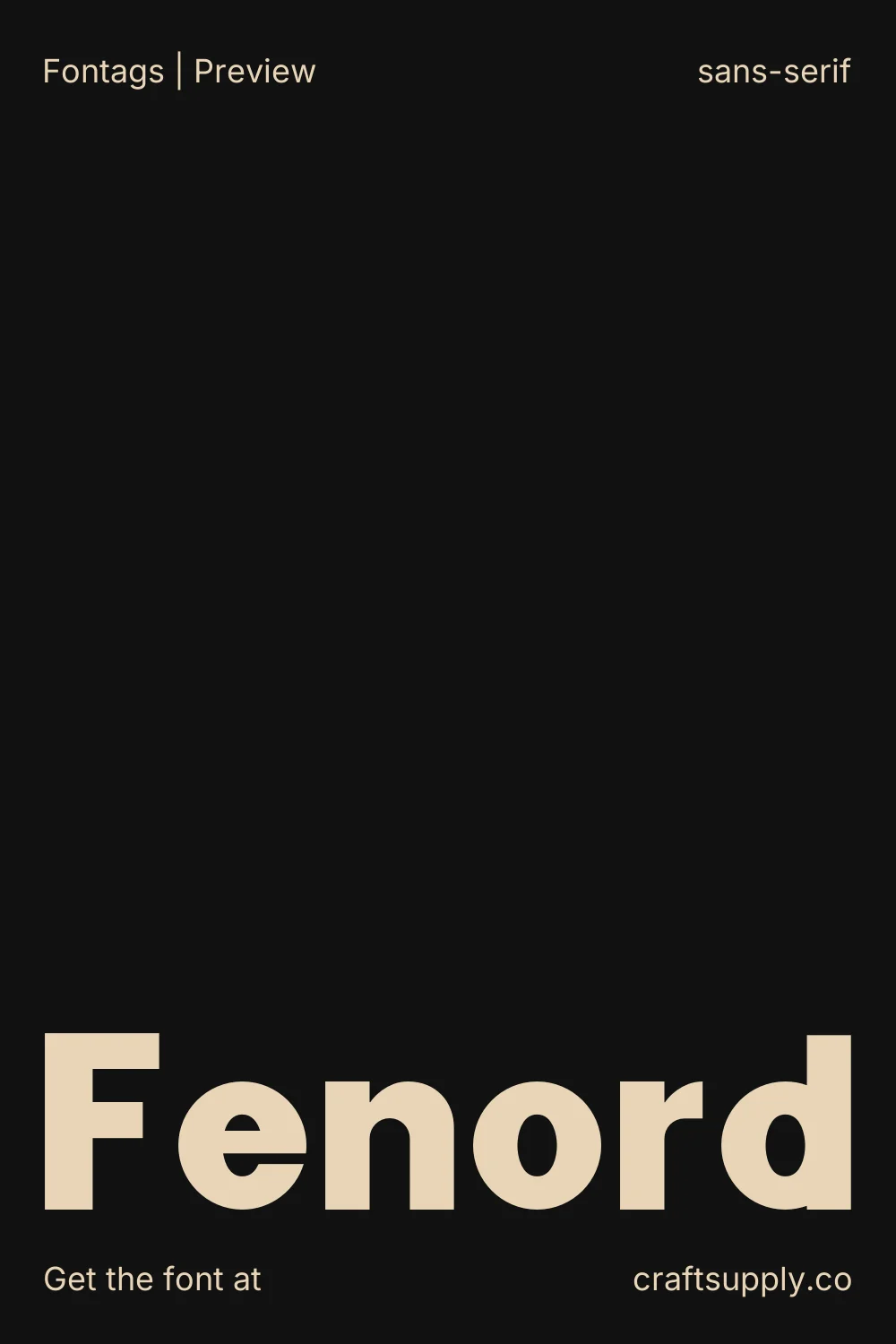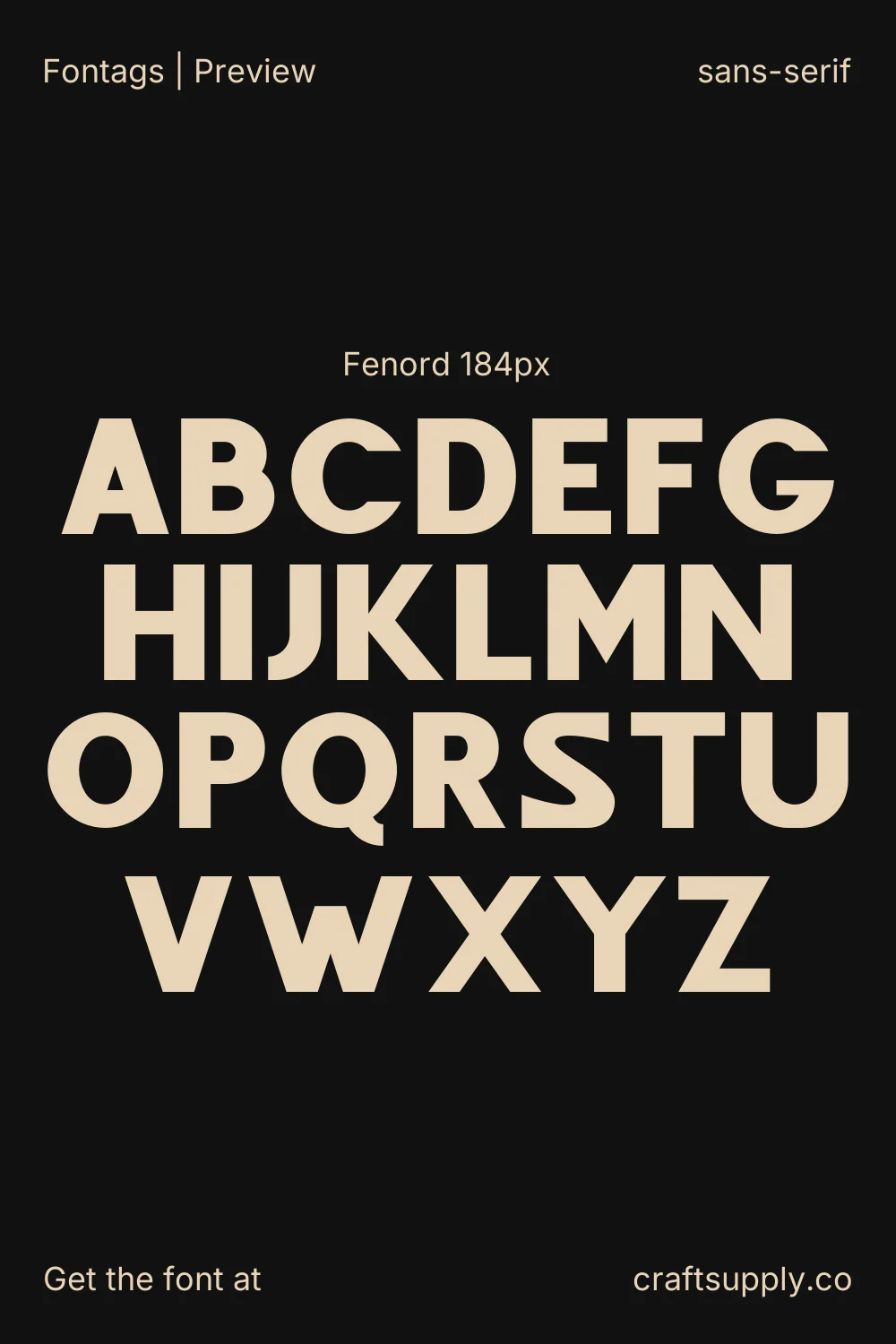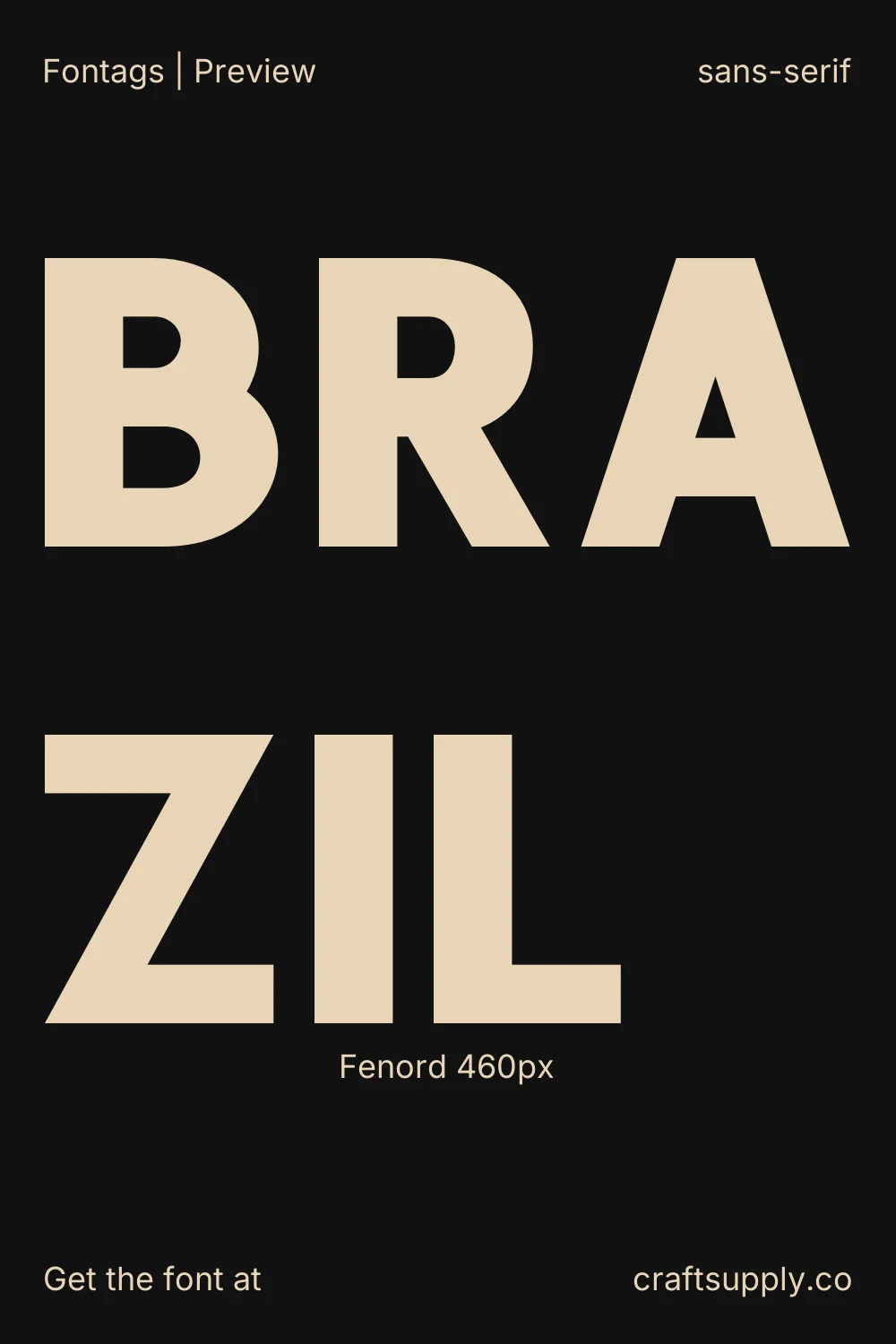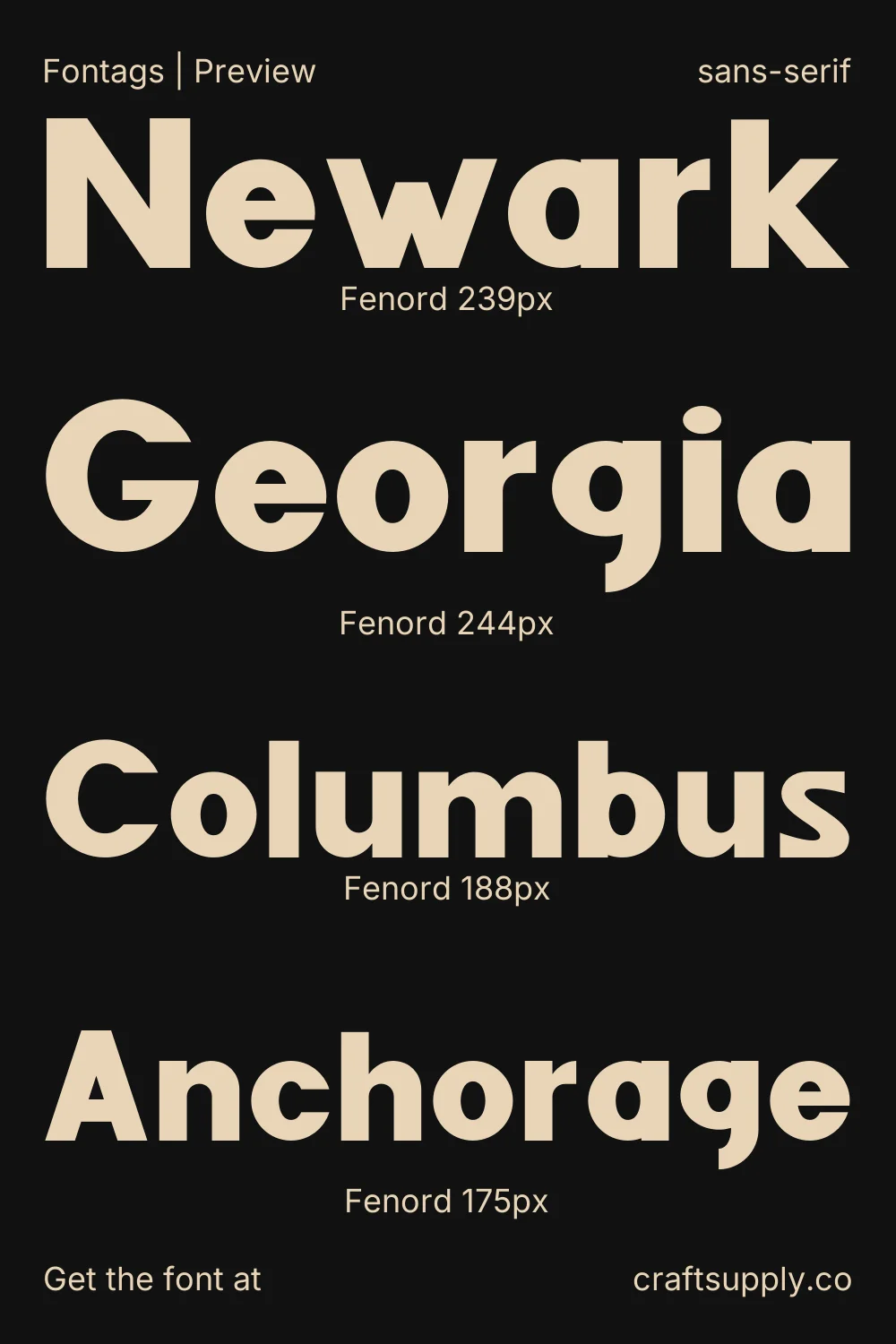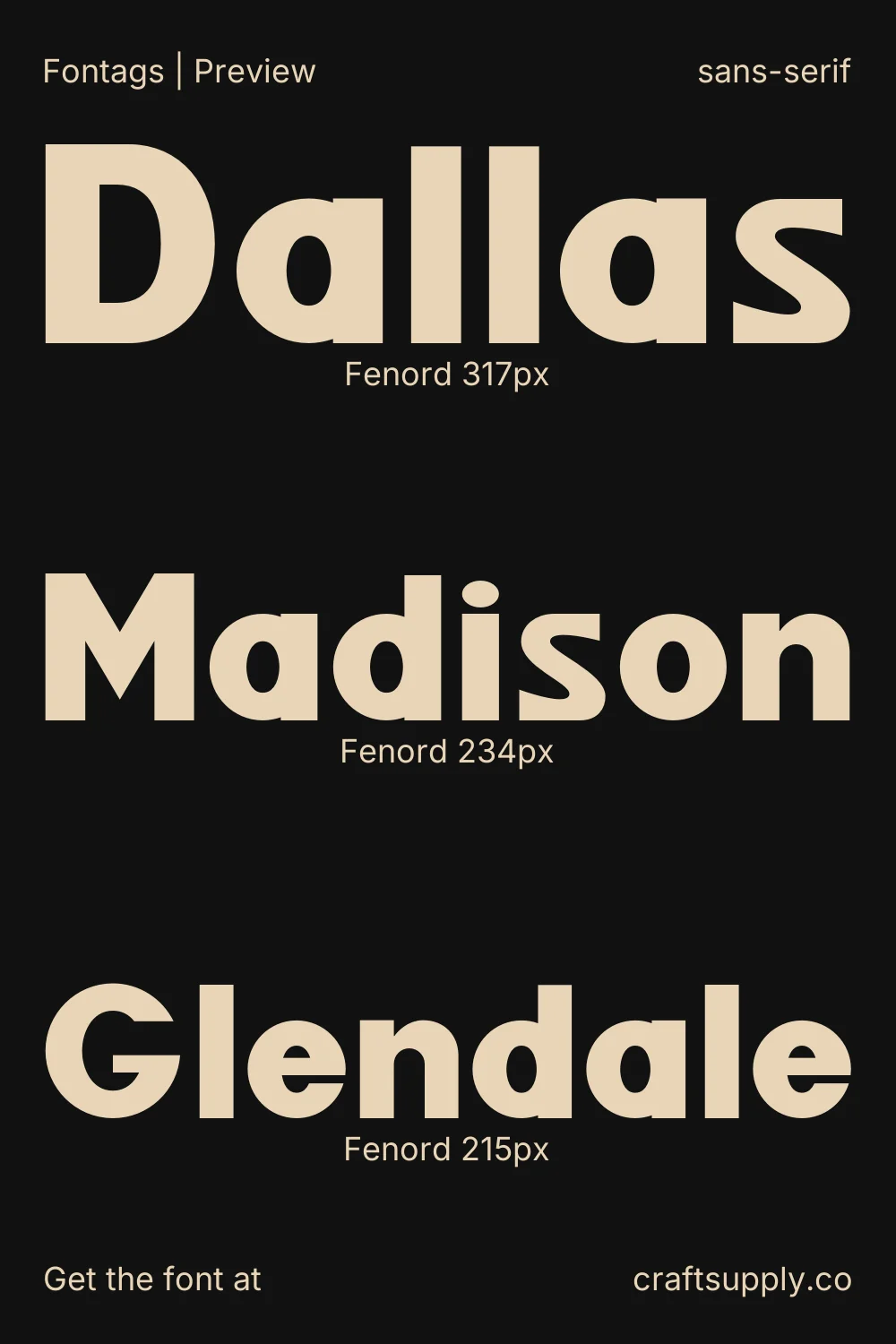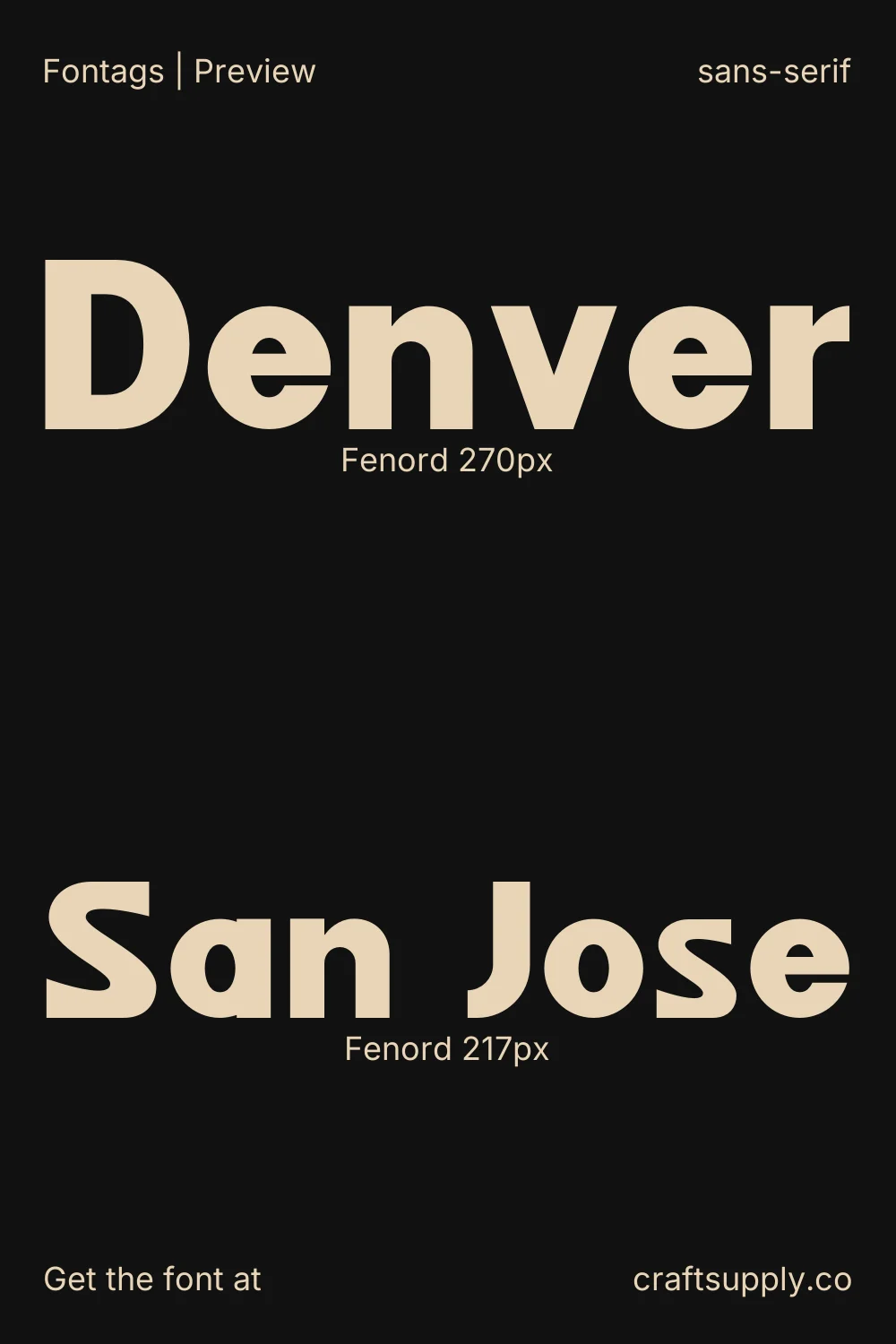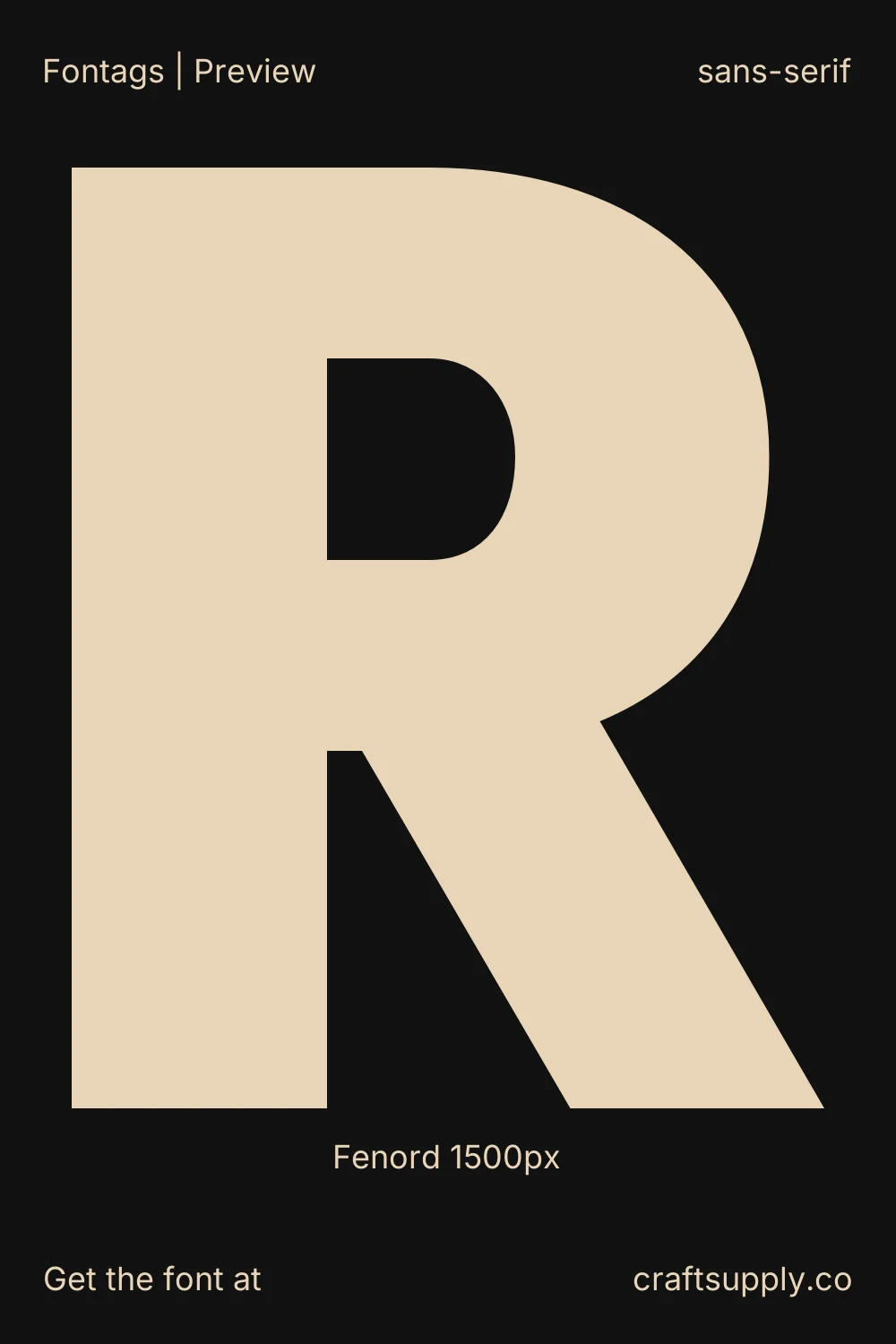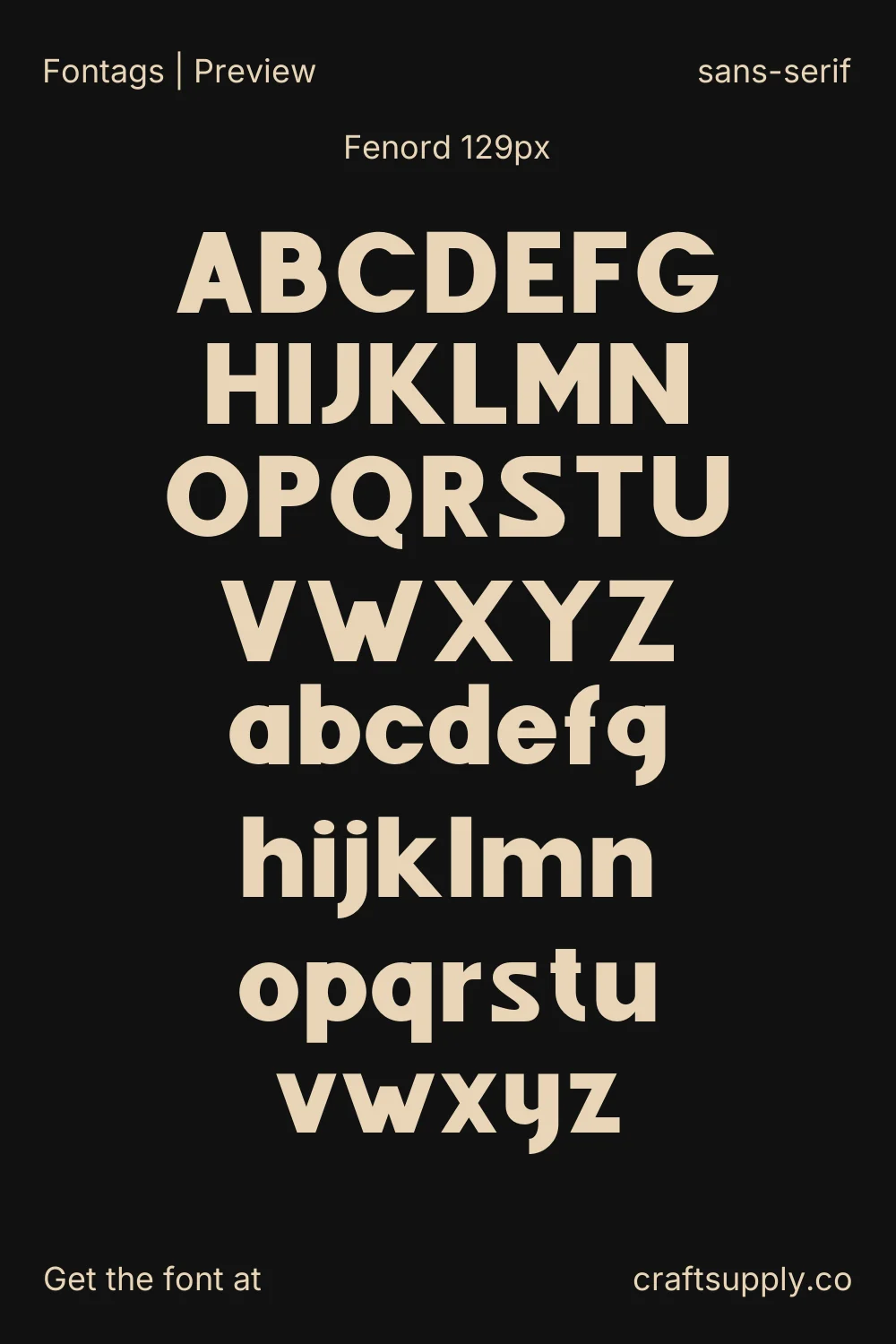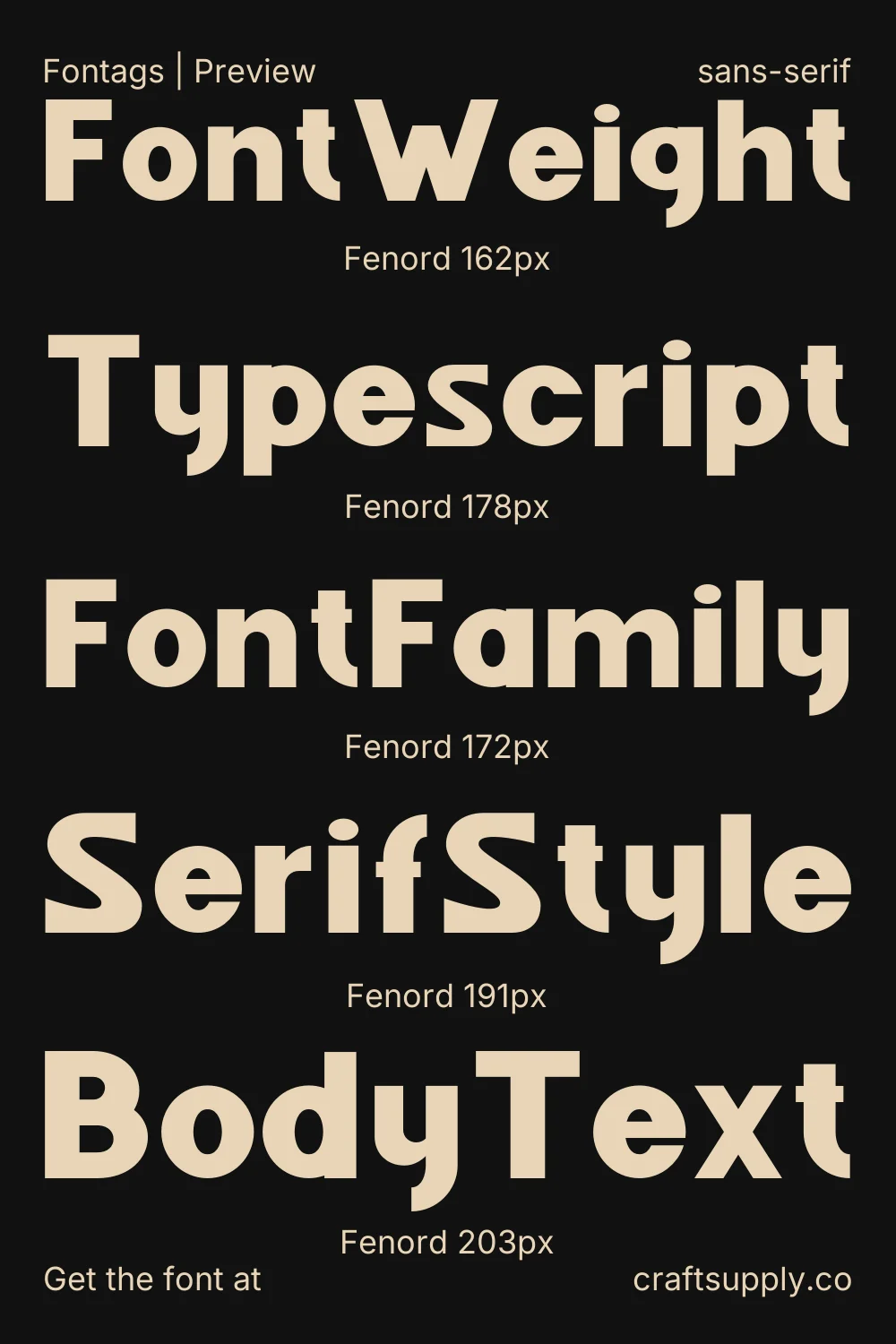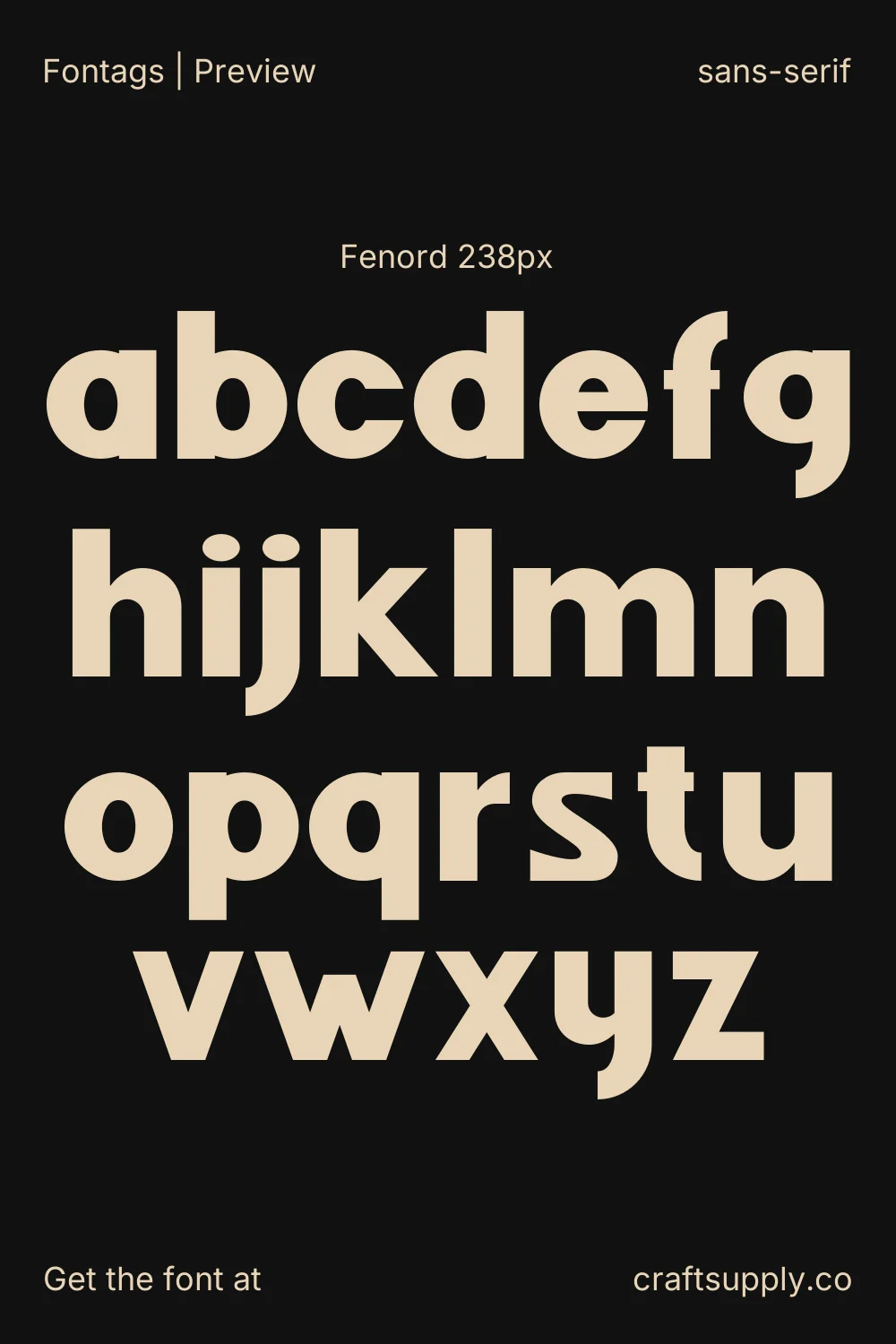
Fenord
Fenord is an old-school sans serif inspired by European type specimen books, blending pure geometry with optical balance. Its solid, vintage character suits logos, posters, branding, greeting cards, and editorial design. With six styles including Regular, Italic, Thin, and Bold, it offers versatility for both print and digital projects, from craft and DIY to modern typography and pop vintage themes.